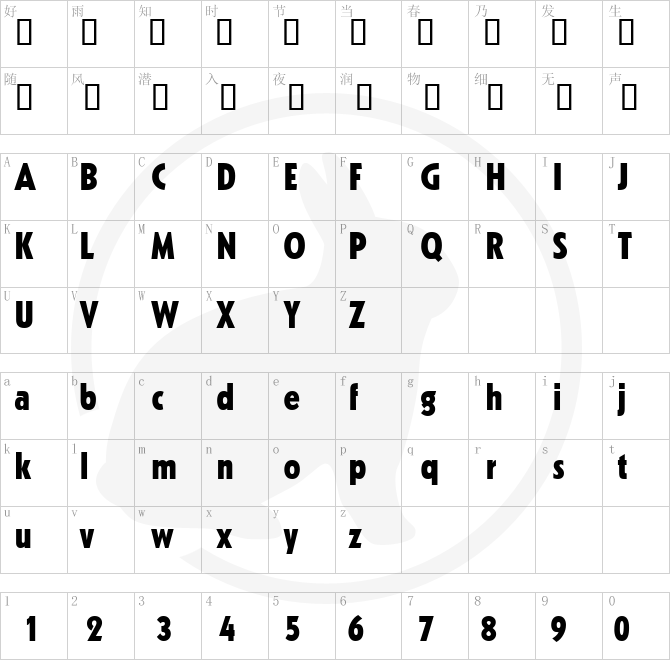
- Font Name:KabinConDB
KabinConDB-Bold.ttf is a very beautiful artistic font, KabinConDB-Bold.ttf is widely used in the design and printing of various books and pictures,KabinConDB-Bold.ttf has a strong visual impact,KabinConDB-Bold.ttf is a commonly used font in newspapers, magazines and books, and is used in posters, e-commerce Poster design, store design, logo design, font design and other fields.KabinConDB-Bold.